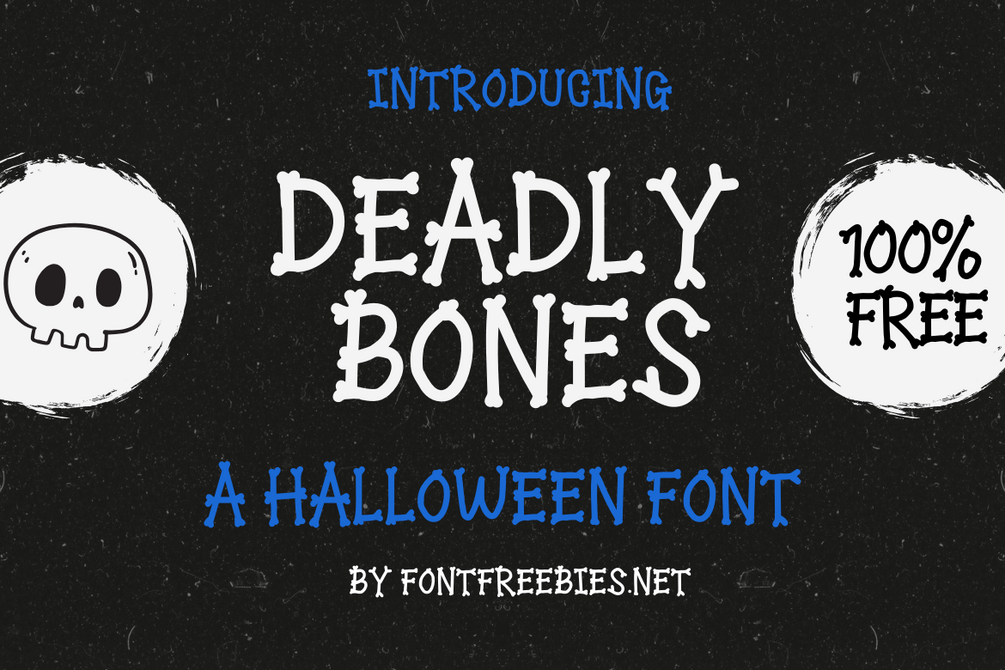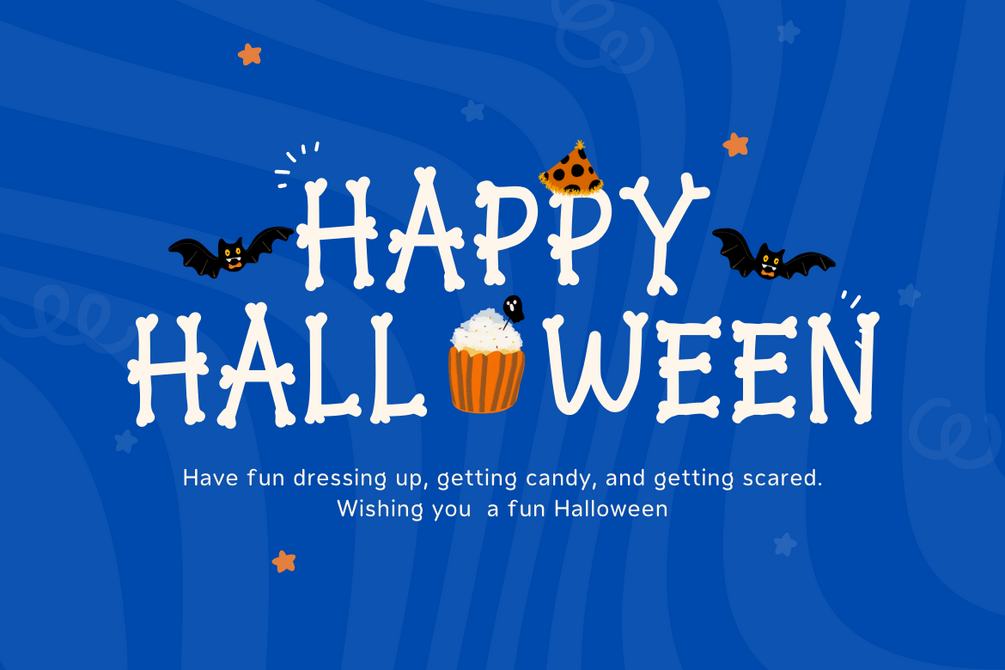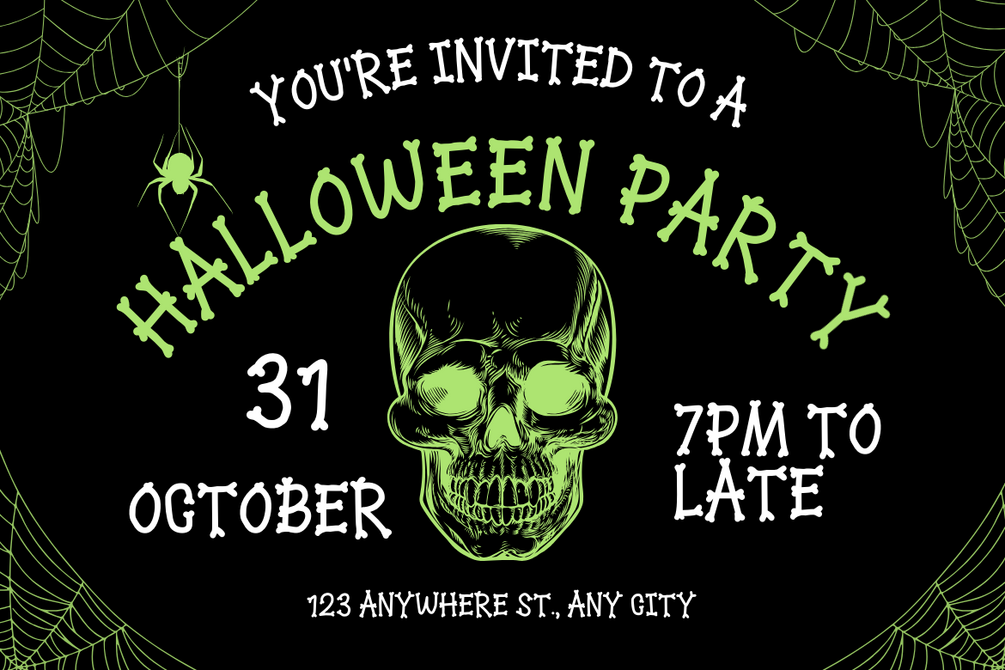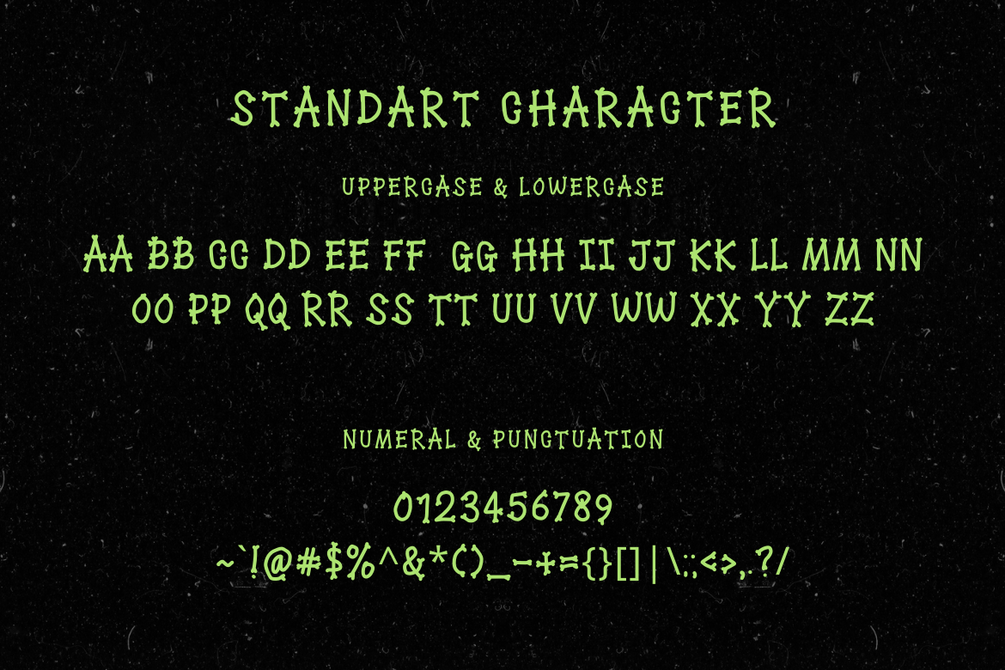
Deadly Bones - A Halloween Font
Deadly Bones is a free, skeleton-themed Halloween font that brings a playful yet eerie vibe to any design. Ideal for spooky invitations, event posters, and social media graphics, this font features bone-inspired letters that perfectly capture the Halloween spirit.